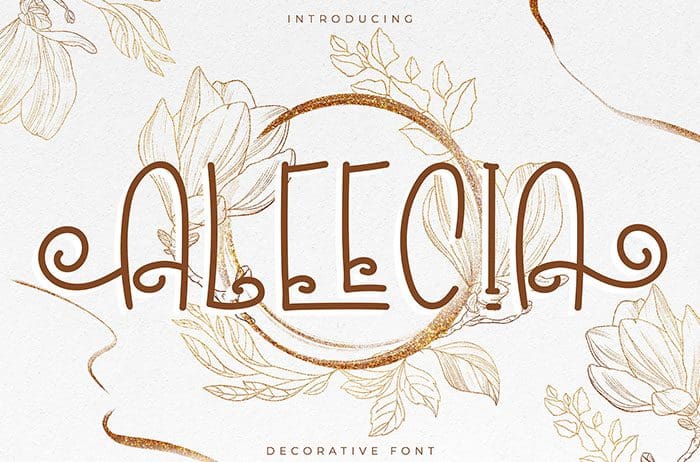
Aleecia Decorative Font
Aleecia is a simple and trendy Decorative Font. No matter the topic, this font will be an incredibly asset to your fonts’ library, as it has the potential to elevate any creation. Thanks to Vunira for sharing this font! Take a look at this portfolio for more of his stunning fonts.